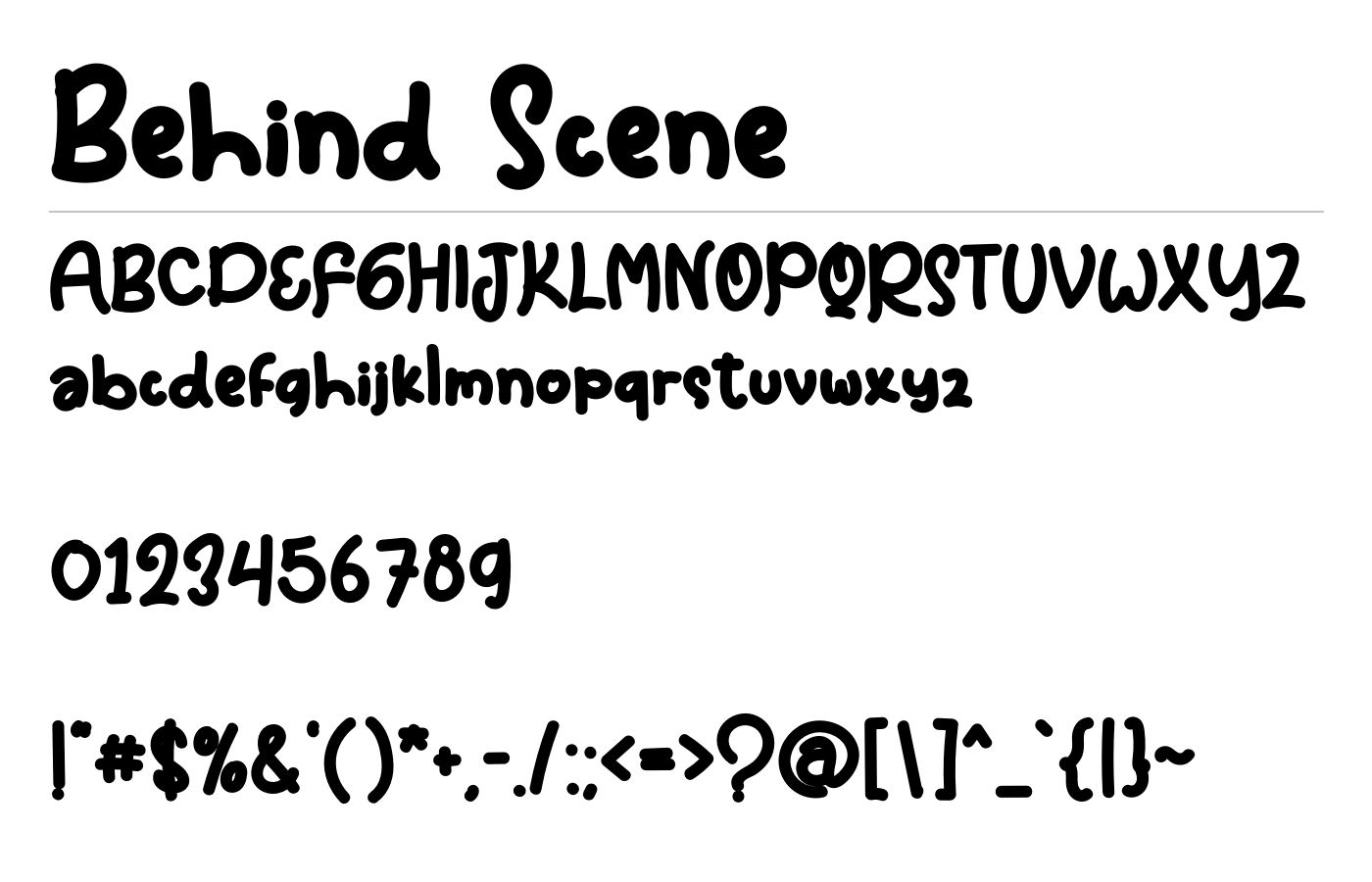
Behind Scene is a playful, rounded sans serif font with a casual, hand-drawn feel, featuring bold weight and consistent stroke thickness. Its quirky letterforms with unique shapes and friendly curves make it ideal for fun, informal designs like children’s books, playful branding, or creative posters. This font’s warm personality and easy readability add a lively, approachable touch to any project.
Behind Scene Font
About Behind Scene Font
| Font family | Behind Scene Font |
| Designer | Nur Edi Prayitno |